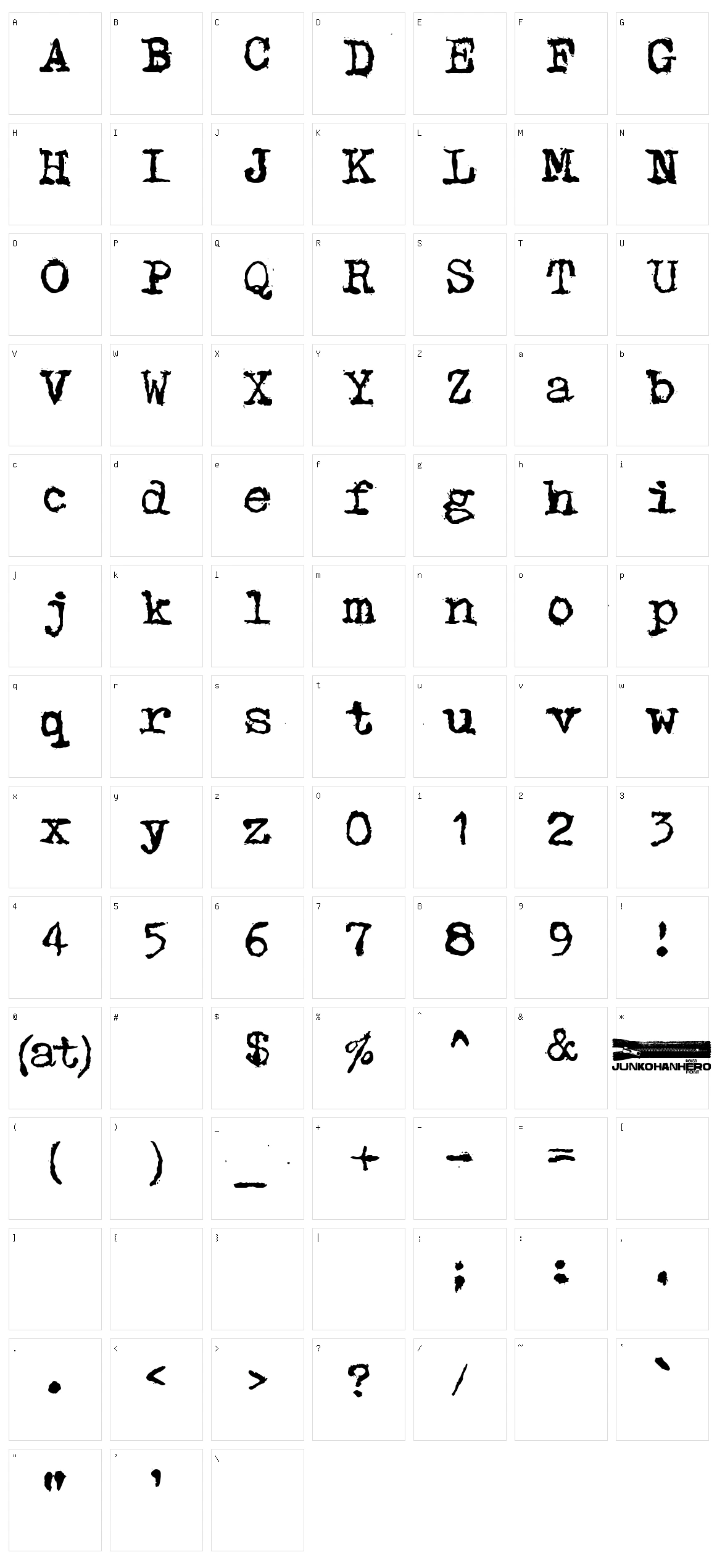
The free font Typpea is carefully designed by junkohanhero, showcasing a thoughtful balance of creativity and usability and falls under the Typewriter font style. When you download the ZIP file, it contains only 36.84 KB of font files, making it lightweight and quick to download. Please review the license details below to understand permitted usage and distribution rights. If license information is not available, we recommend using this font for personal projects only or contacting the author directly for commercial usage permissions.